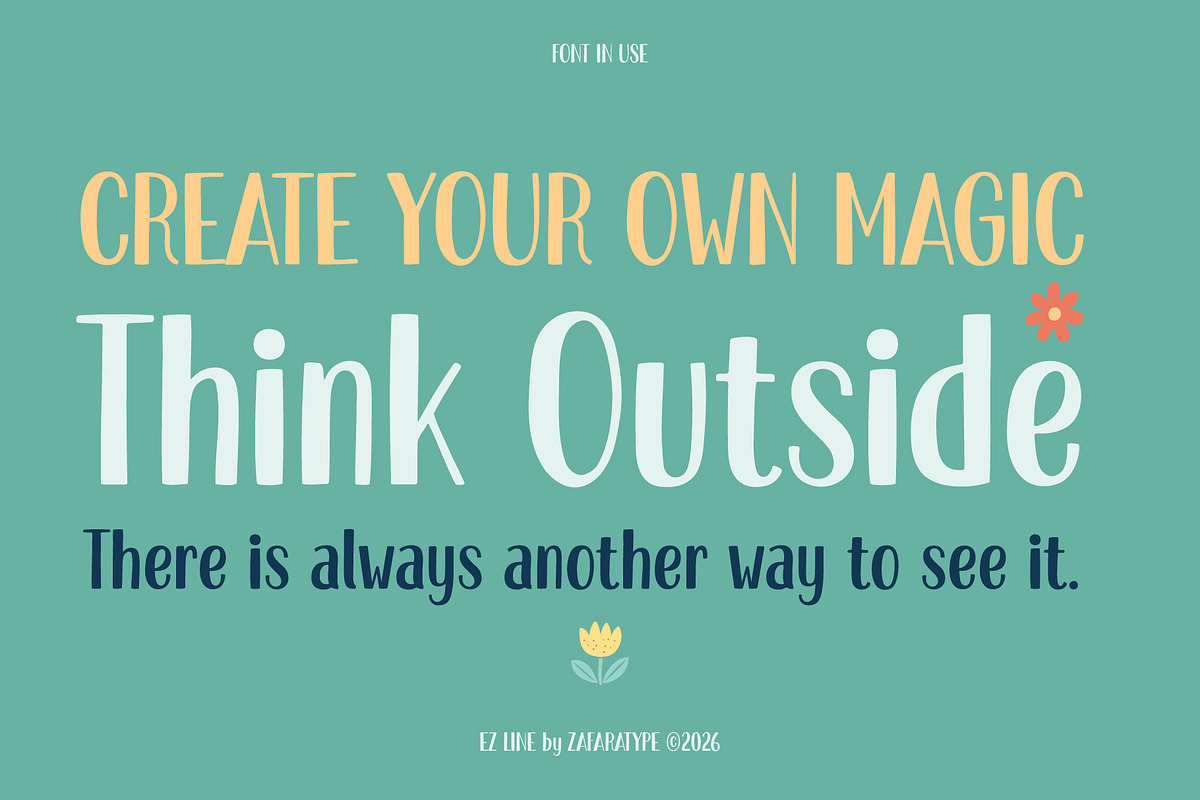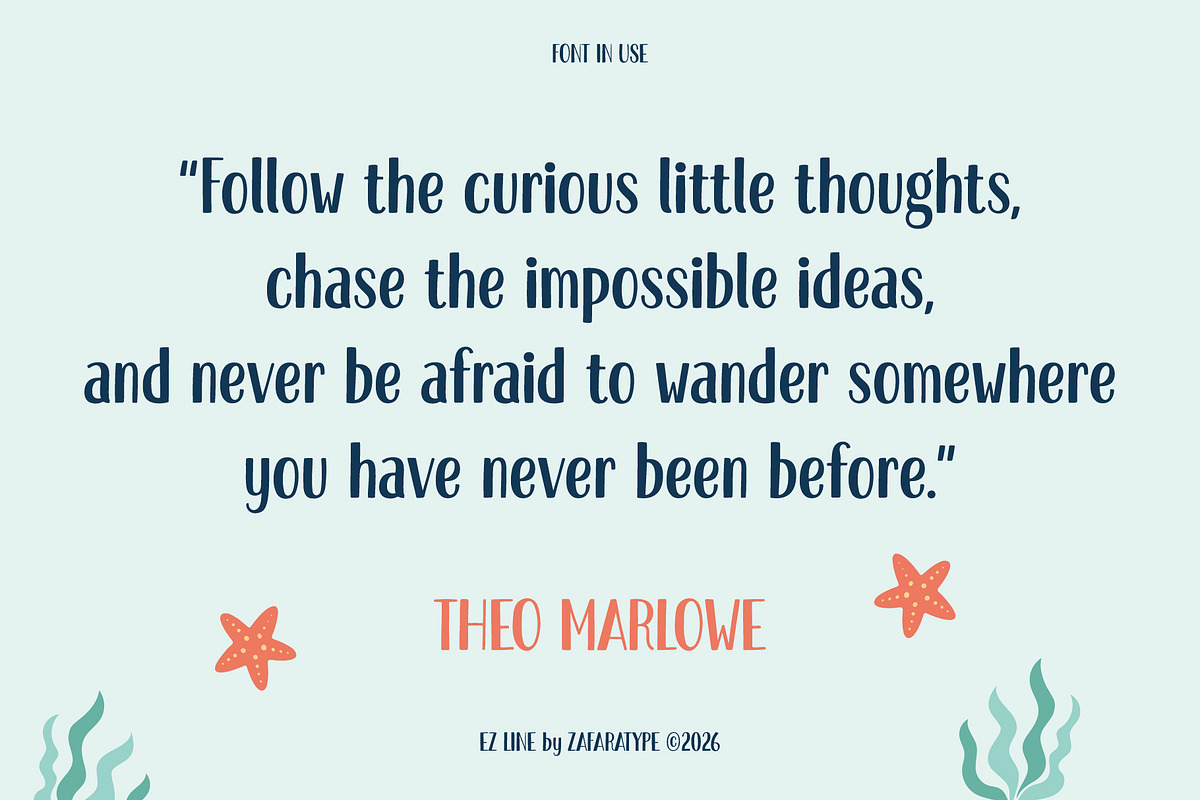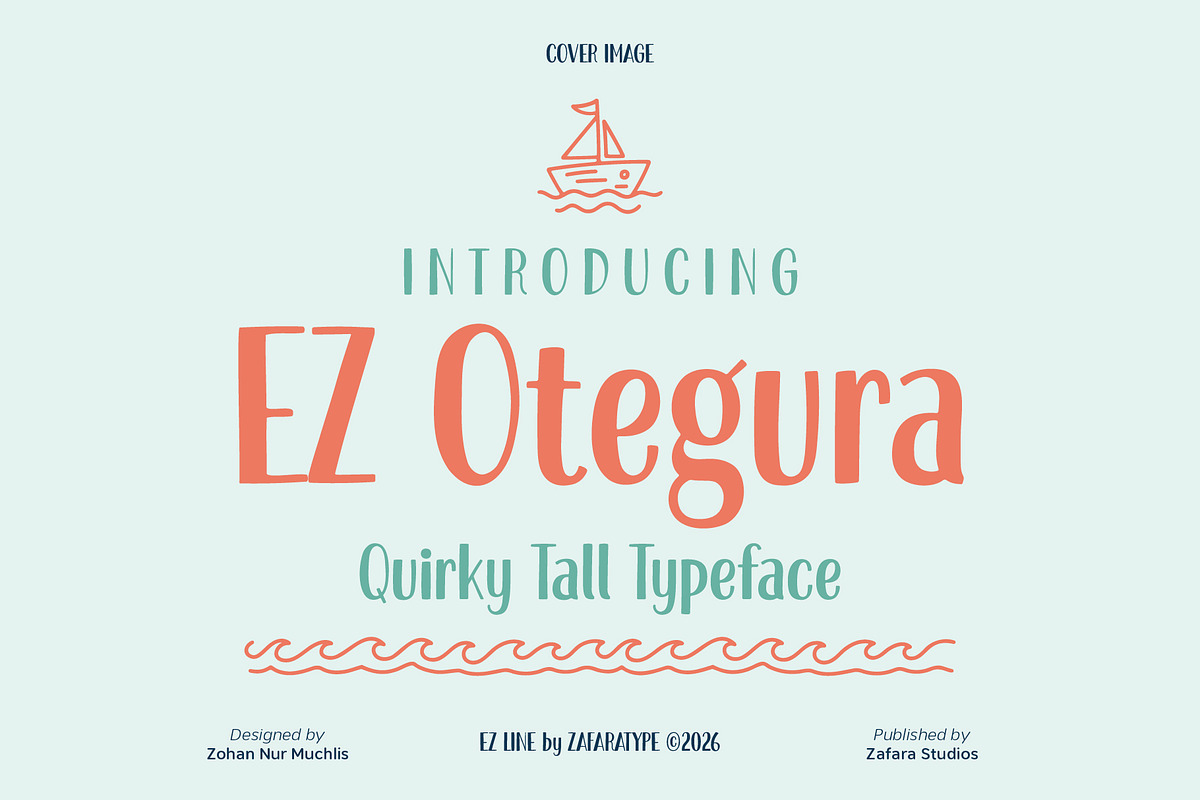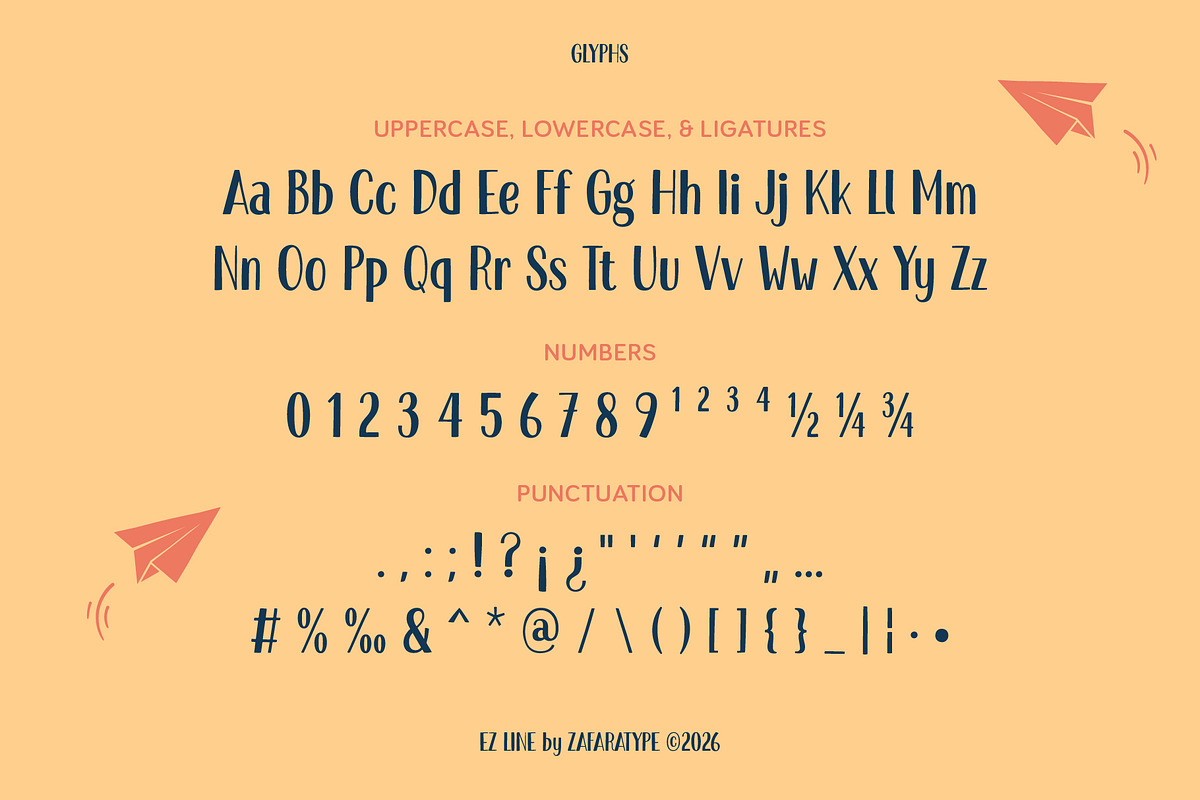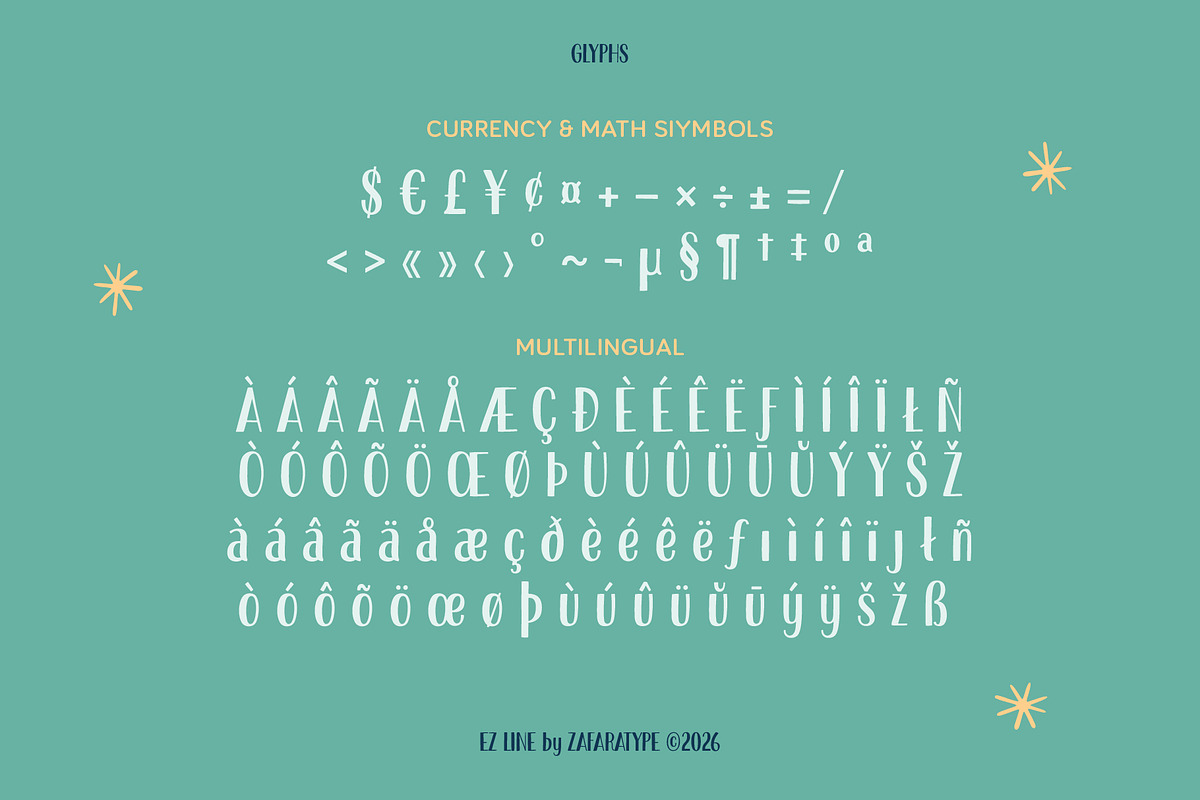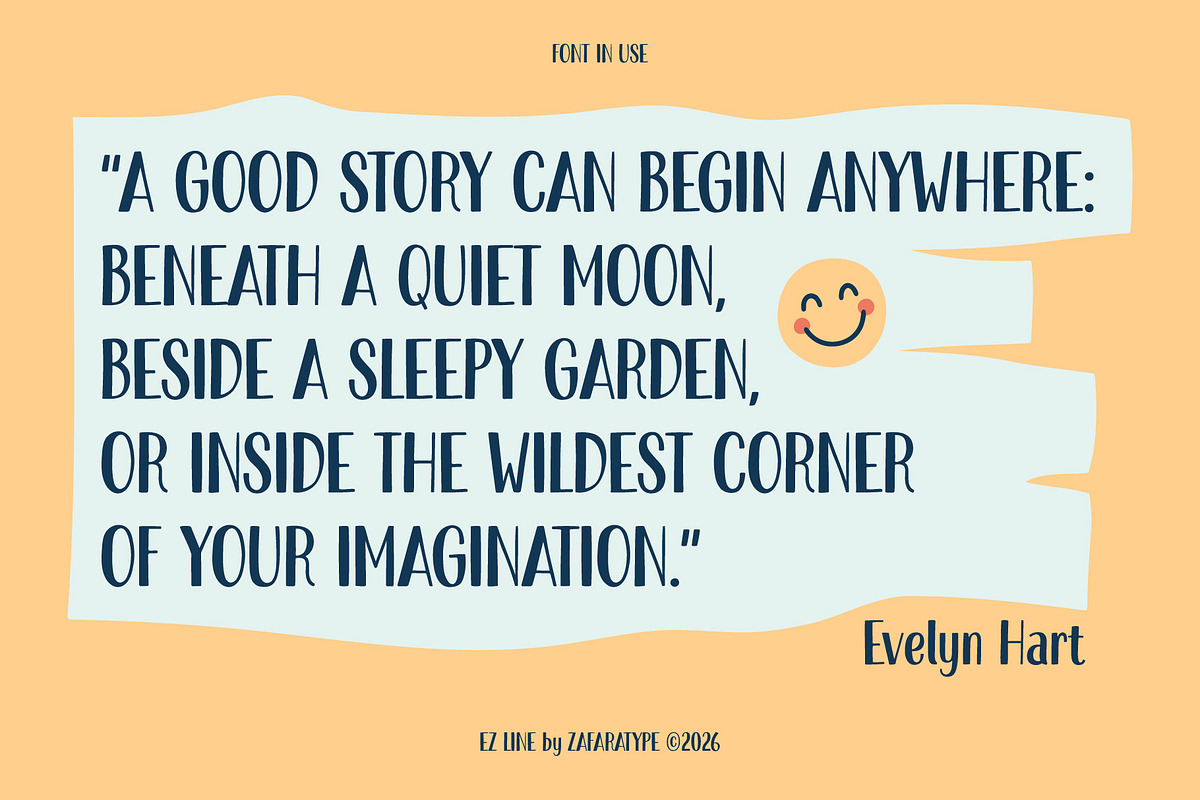
EZ Otegura
EZ Otegura is a tall and playful display font that blends narrow, rounded letterforms with a quirky and expressive personality. Featuring elongated shapes, soft curves, and distinctive handwritten-inspired details, it brings a fun and energetic touch to your designs while keeping every word stylish, friendly, and full of character.
Designed to capture the charm of quirky, expressive typography, EZ Otegura is perfect for branding, logos, packaging, posters, social media, greeting cards, quotes, children’s designs, stickers, merchandise, and other creative projects. Its tall and distinctive style gives every design a fun, casual, and memorable personality.
The details:
243 glyphs: Uppercase, lowercase, ligatures, numbers & punctuation, symbols & accents, multilingual support